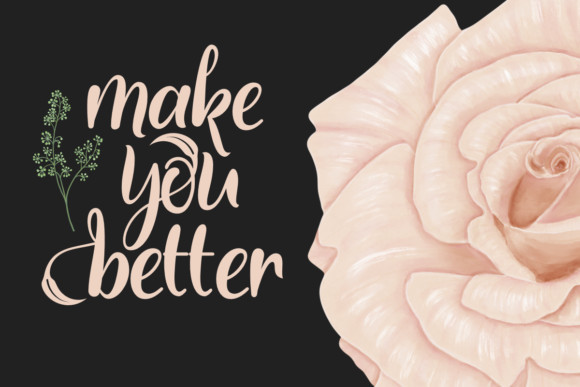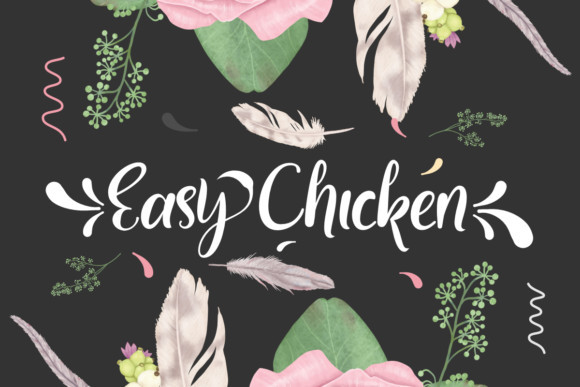
Easy Chicken Font
Easy Chicken FontEasy Chicken is a great handwritten font. Use it to add that special modern-cute touch to any design idea you can think of! It will elevate a wide range of design projects to the highest level, be it branding, crafts, headings, wedding designs, invitations, logos, labels, cartoon, and much more!